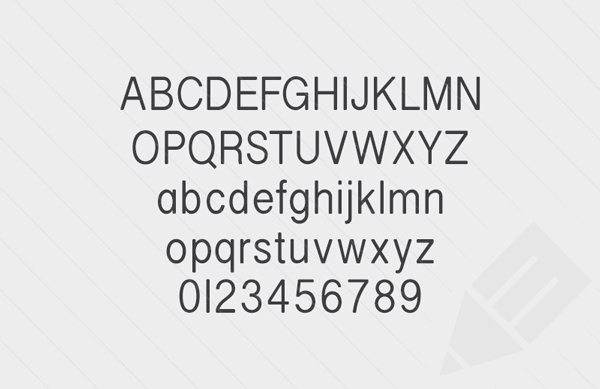
free font of the day viro
Free Font Of The Day #38 – Viro Font
Viro Font
Viro is a sans-serif humanist typeface, slightly condensed and with subtle rounded edges. This font would be suitable for almost any purpose from headlines to body copy. It includes uppercase and lowercase letters, numbers, symbols and accented letters.